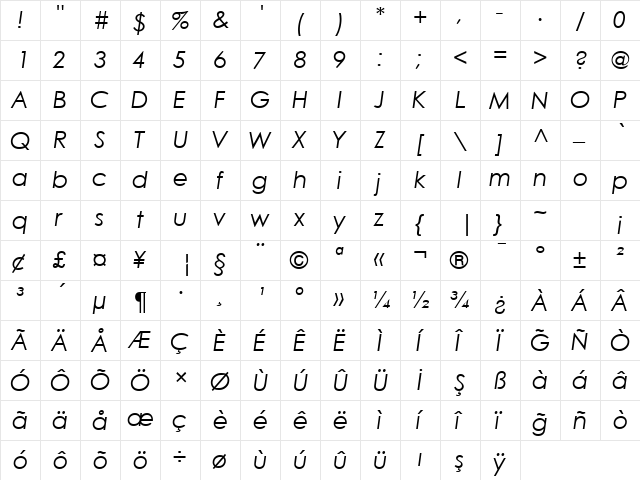
TR Century Gothic Italic
Design Context for TR Century Gothic Typeface
TR Century Gothic has the quiet confidence of well-executed sans-serif typography: versatile, unobtrusive, and dependable at any size. The dynamic lean of this cut emphasises speed and emphasis in any layout.
Font Pairing: Works well alongside a characterful serif or display font that can carry the expressive load while TR Century Gothic handles the functional copy.
Pro Tip: Use TR Century Gothic for UI labels, navigation, and short-form body copy where clean legibility is the priority.